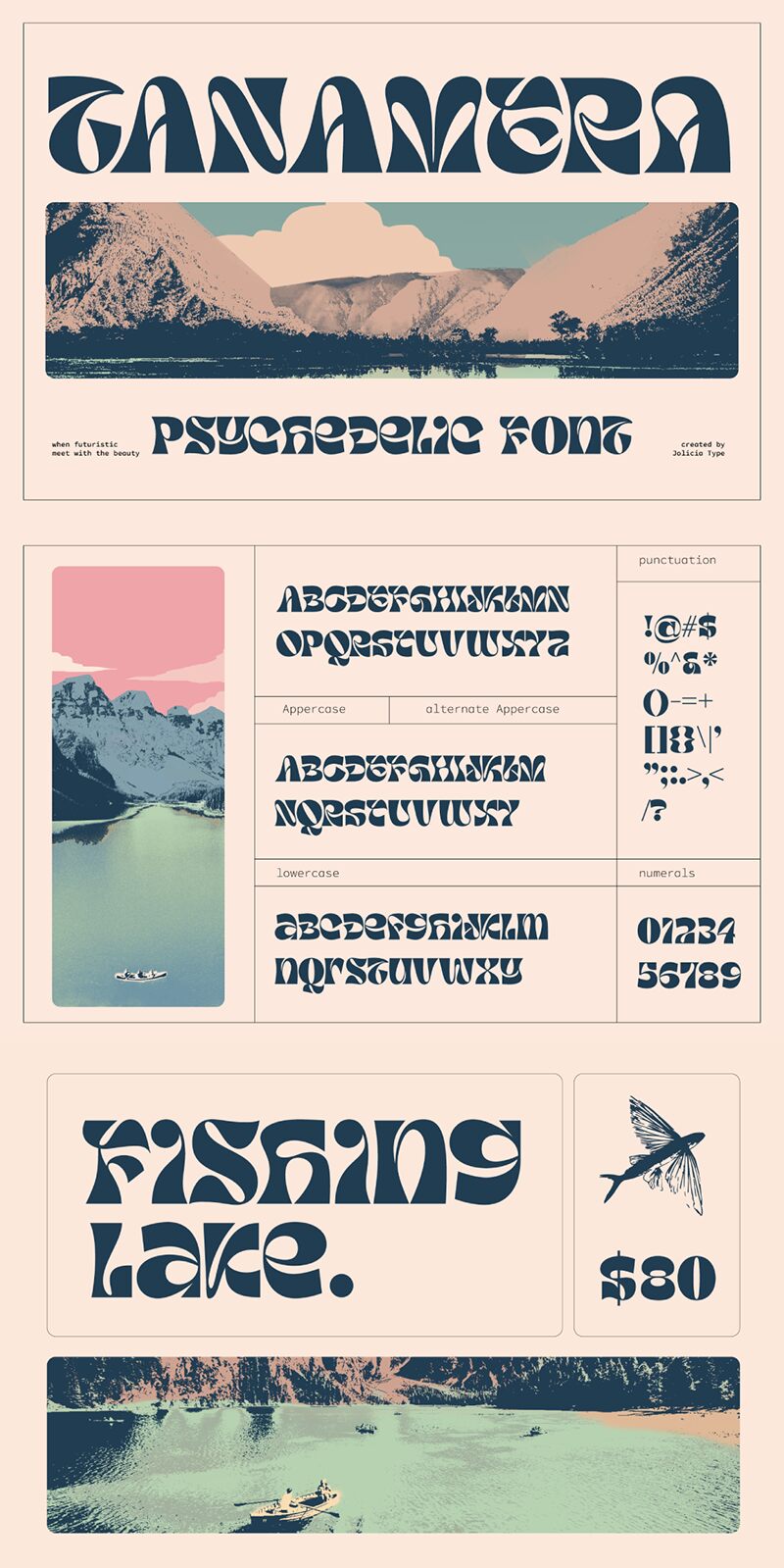
TANAMERA
Tanamera font is a groovy display font designed by Jolicia Type Foundry. Inspired by the vibrant energy of the 60s and 70s, this bold typeface channels the essence of a retro vintage style, incorporating intricate patterns, ornate designs, and imaginative flair. Its artistic elements give it a unique psychedelic aura with decorative forms captivating anyone at first sight.